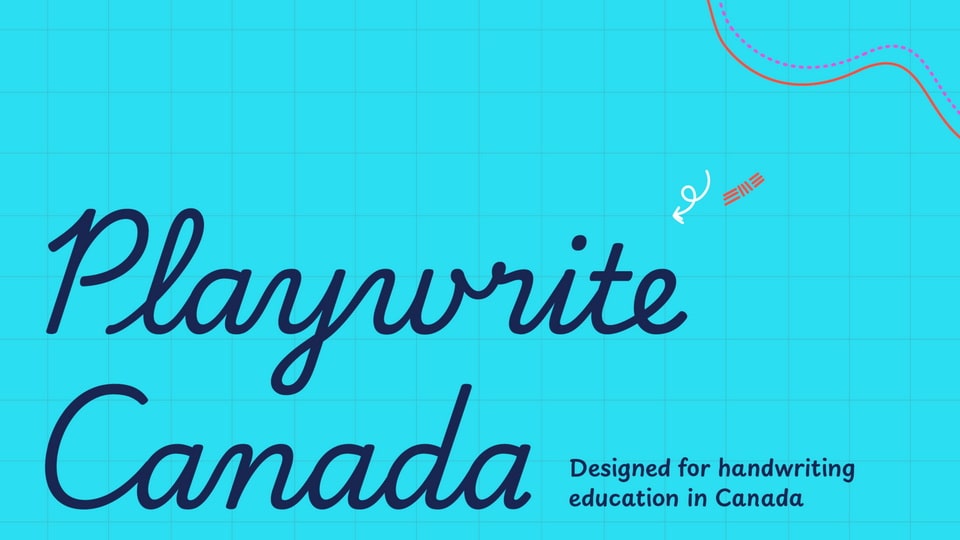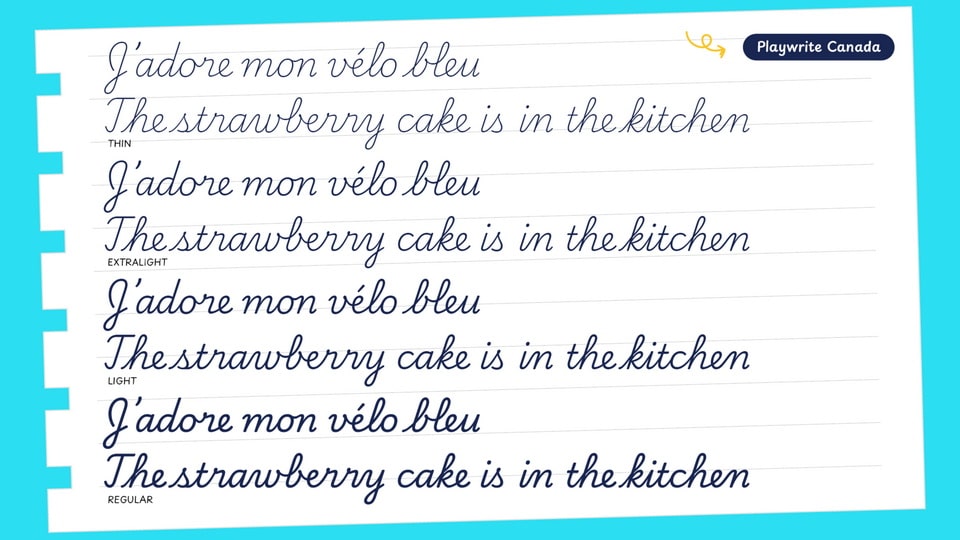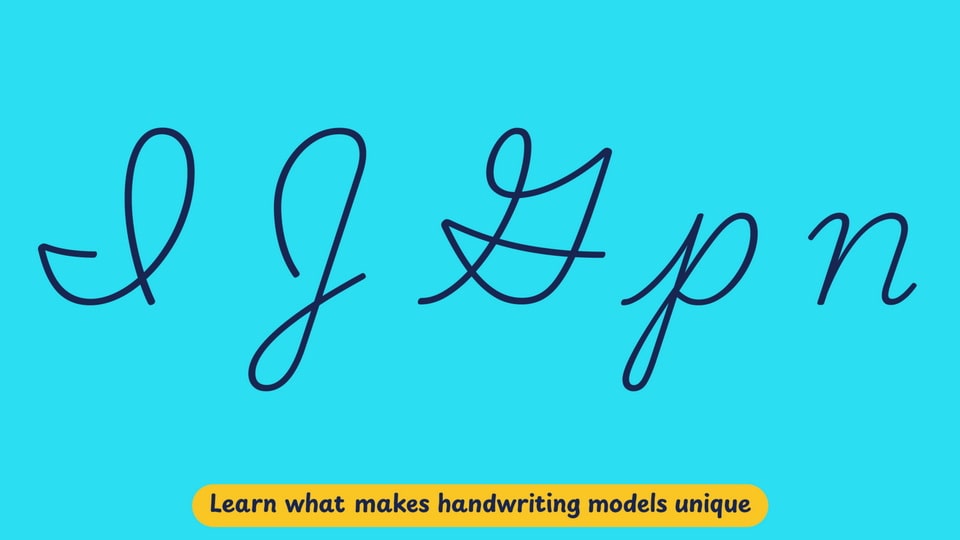
Playwrite is a typeface engine that allows the creation of primary school cursive fonts.
The traditional method of handwriting instruction in Canada is called MacLean’s Method of Writing, and was developed by educator Henry Boyver MacLean in the mid-20th century. Building upon letter shapes devised by Austin Norman Palmer in the United States, MacLean introduced several changes to suit the needs of school instruction, such as modifications to teaching methods and the addition of motor preparation exercises. Even though MacLean’s books have not been used in Canada for several years, his letter shapes survive in schoolbooks published by regional governments and private publishing houses. They are widely used in the majority of Canadian primary schools.
This slanted continuous cursive style is influenced by the Zaner-Bloser and D’Nealian models. It includes cursive uppercase letters, with some particularly intricate ones like ‘I’, ‘J’, and ‘G’. The lowercase letters feature medium-length extenders with loops, which are consistent even in letters like ‘p’ and ‘q’, and are constructed using medium-speed strokes. Additionally, several lowercase letters such as ‘m’, ‘n’, ‘v’, ‘w’, ‘y’, and ‘z’ start with curved entry strokes at the x-height.